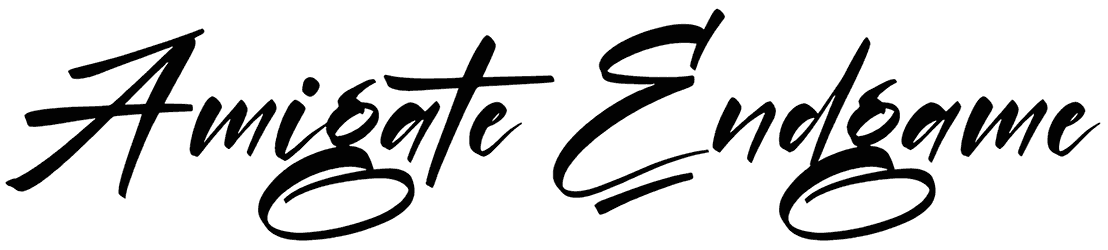
Amigate Endgame Font
If you are in the mood for adding a dramatic touch to your artwork, we have a special offer, such as Amigate Endgame, for you. This script font provides two distinctive styles and lets you add a bit of variety to your movie posters, covers, logos, social media posts, or stationery.